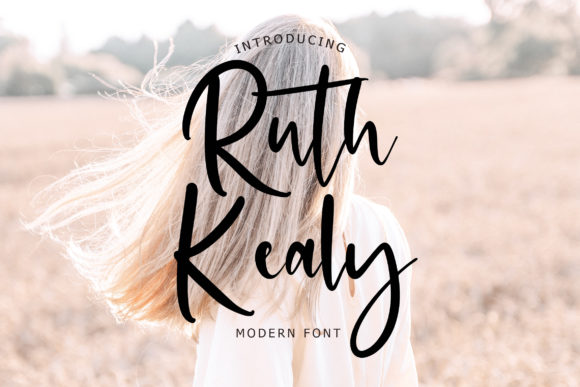
Prepare your next wedding invitations and social media posts with Ruth Kealy Font, an elegant and modern script font. Crafted with a trendy handwritten style, Ruth Kealy transforms your words into a luxurious and captivating experience.
Indulge in the beauty of this font, perfect for adding a touch of sophistication to your branding projects, logos, and social media presence. Its versatility extends to product packaging, t-shirt designs, labels, and more.
Ruth Kealy captures the essence of timeless elegance and contemporary charm. Elevate your designs, make a lasting impression, and turn your projects into works of art with this captivating script font.